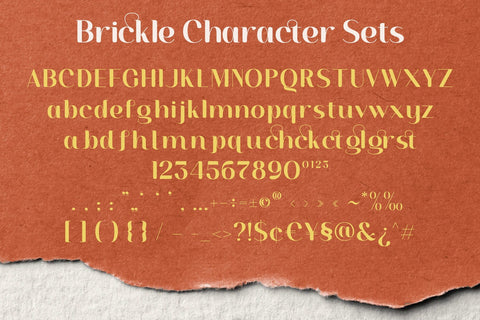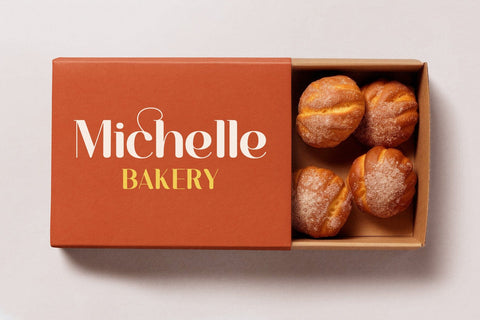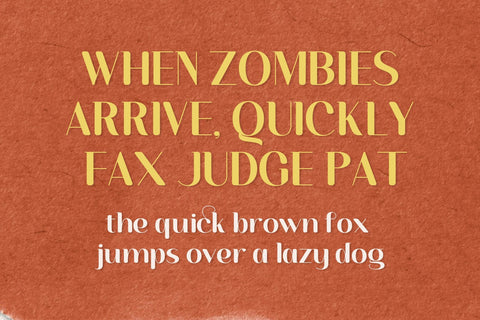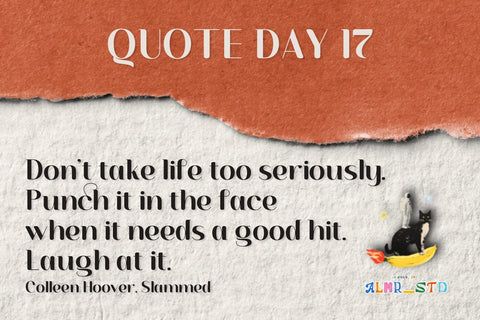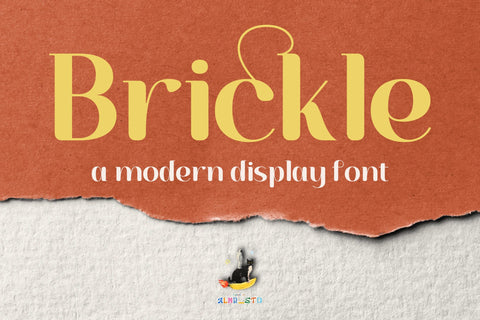
Brickle - Display Font
Introducing Brickle - Display Font. Brickle is a display san serif font, This type of font is very suitable for your various needs such as branding projects, logos, social media posts, advertisements, labels, product packaging, photography, wedding designs, watermarks, invitation product designs, stationery, and any project.